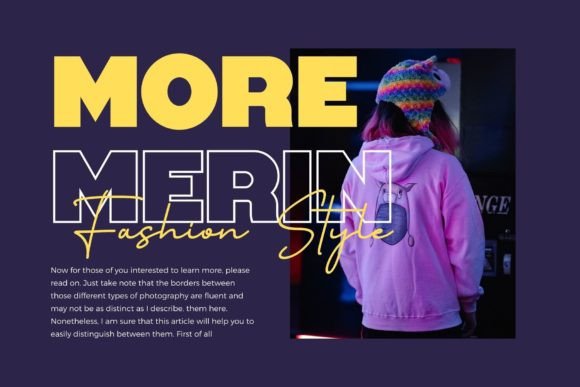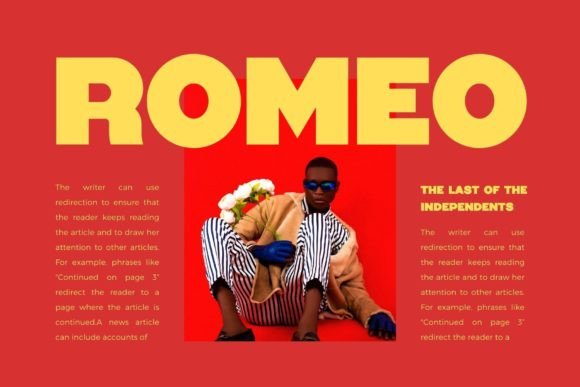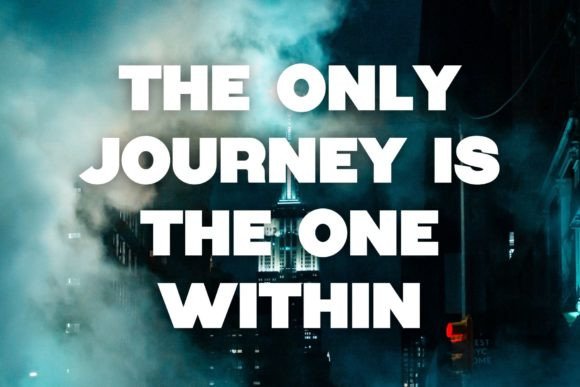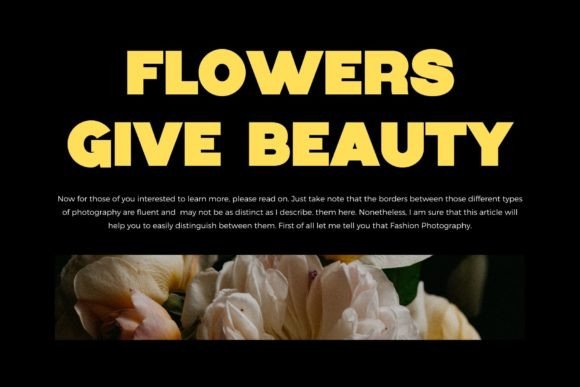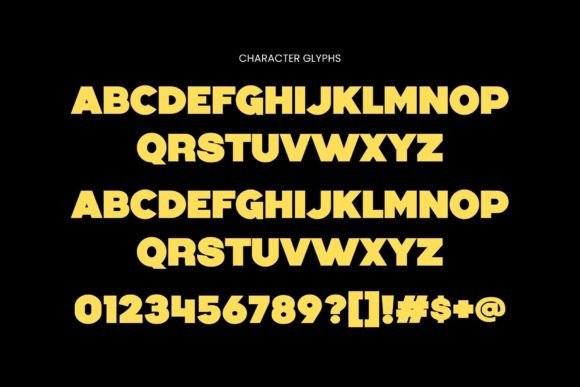
Introducing Almost Textual: The Ultimate Sans-Serif Font for Modern Design
In the world of typography, finding the perfect font that balances elegance and readability can be a daunting task. However, with Almost Textual, a contemporary sans-serif font, designers and crafters can rejoice. This versatile font strikes the ideal balance between sophistication and legibility, making it an excellent choice for various applications, from print to digital projects.
The Design Philosophy of Almost Textual
Almost Textual boasts a clean and minimalist design, ensuring effortless legibility across different mediums. Its sans-serif structure provides a crisp and modern look, while its subtle curves and lines add a touch of sophistication. The font’s design philosophy revolves around creating a harmonious balance between form and function. This balance enables Almost Textual to bring a sense of refinement and elegance to any text, making it perfect for body text, headings, and more.
Key Features of Almost Textual
• Clean and Minimalist Design: The font’s uncluttered design ensures that the text remains clear and legible, even at smaller font sizes.
• Elegant and Sophisticated: Almost Textual’s subtle curves and lines add a touch of sophistication, making it ideal for designs that require a level of refinement.
• High Readability: The font’s design prioritizes readability, making it perfect for both print and digital projects, including body text and headings.
• Versatile: Almost Textual’s adaptability makes it suitable for a wide range of applications, from editorial design to digital interfaces.
Applications of Almost Textual
Almost Textual’s versatility makes it an excellent choice for various design projects. Here are some of the ways designers and crafters can utilize this font:
• Print Design: Use Almost Textual for editorial design, such as magazines, newspapers, and books, where readability and elegance are paramount.
• Digital Design: The font’s clean design makes it perfect for digital interfaces, including websites, mobile apps, and e-books.
• Headings and Titles: Almost Textual’s sophisticated look makes it ideal for headings and titles, adding a touch of refinement to any design.
• Branding and Identity: The font’s versatility makes it suitable for branding and identity projects, where a modern and elegant look is desired.
Why Choose Almost Textual?
In a world where typography plays a crucial role in design, Almost Textual stands out as a reliable and elegant solution. Here are some reasons why designers and crafters should consider Almost Textual for their next project:
• Unique Balance: Almost Textual strikes the perfect balance between elegance and readability, making it a rare find in the world of typography.
• Time-Saving: The font’s versatility and adaptability save designers time and effort, as it can be used across various applications.
• Modern Look: Almost Textual brings a touch of modernity to any design, ensuring that the final product looks fresh and contemporary.
Font Name Almost Textual Font
Author Graphicxell
Almost Textual is a game-changer in the world of typography, offering a unique blend of elegance and readability. Its clean and minimalist design, sophisticated look, and versatility make it an ideal choice for designers and crafters seeking a reliable font for their projects. Whether it’s for print or digital design, Almost Textual is poised to become a go-to font for those who value typography and design excellence.